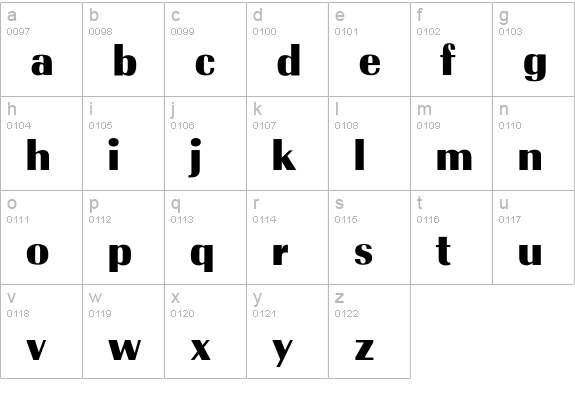
TrabantBold Font Details
TrabantBold is a striking and versatile font that exudes strength and confidence. With its bold and commanding letterforms, this typeface is perfect for making a bold statement in any design project. Whether used for headlines, logos, or display purposes, TrabantBold demands attention and leaves a lasting impression. This font features clean lines and sharp edges, giving it a modern and contemporary feel. Its thick strokes provide a sense of solidity, while its slightly rounded corners add a touch of friendliness. TrabantBold strikes the perfect balance between professionalism and approachability, making it suitable for a wide range of applications. One of the best things about TrabantBold is that it is free. Yes, you read that right! This font is freely available to download at FontsMarket.com. Now, you can enhance your designs without worrying about breaking the bank. Whether you're a professional designer or a hobbyist, TrabantBold offers a high-quality and stylish option that won't cost you a penny. So why wait? Take advantage of this amazing opportunity and download TrabantBold today. Elevate your designs with this powerful and captivating font that is sure to leave a lasting impression. Don't miss out on the chance to add TrabantBold to your font collection and unleash your creativity with this remarkable and freely available typeface.